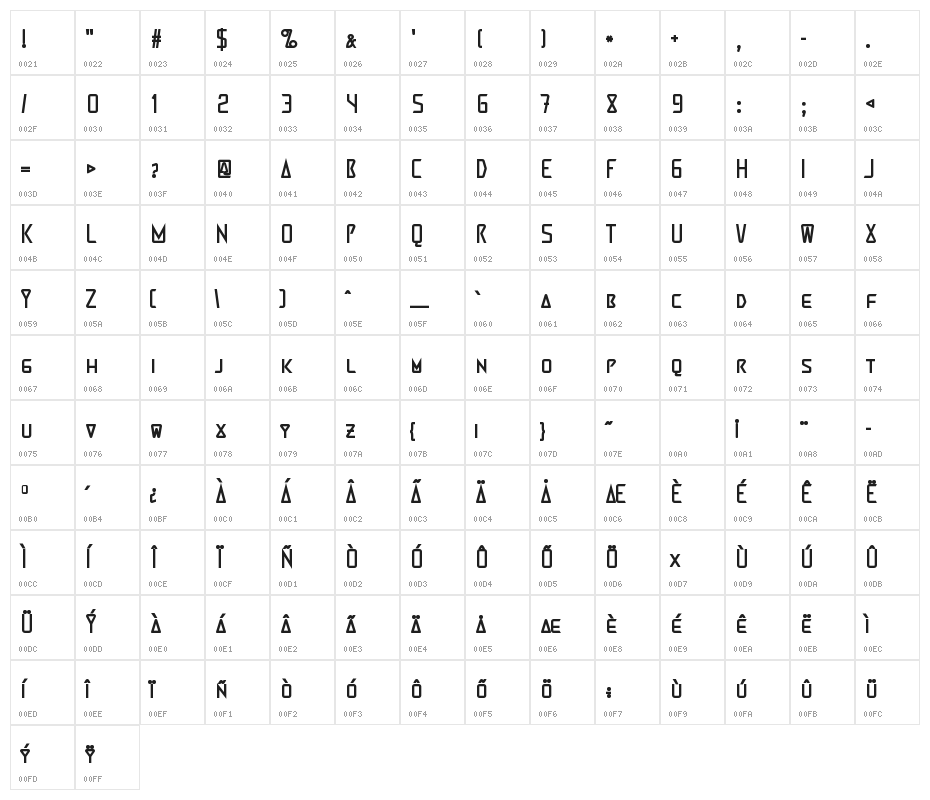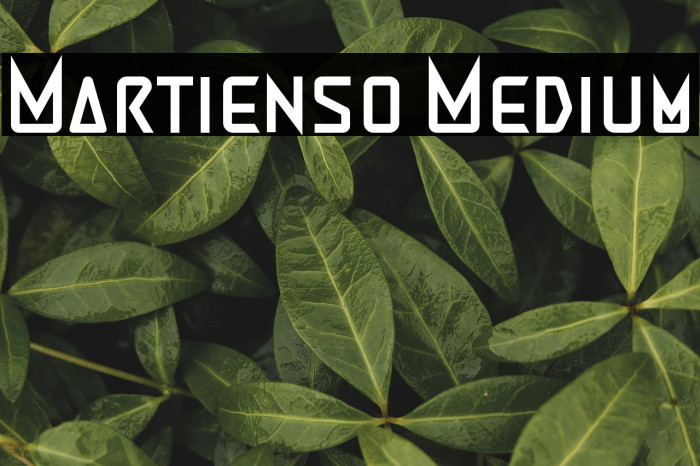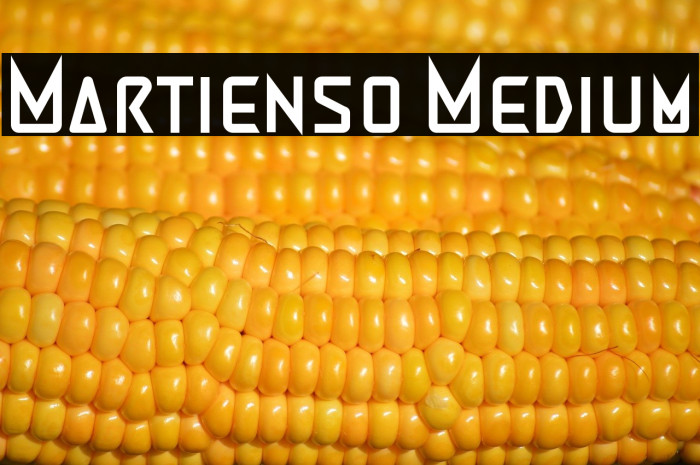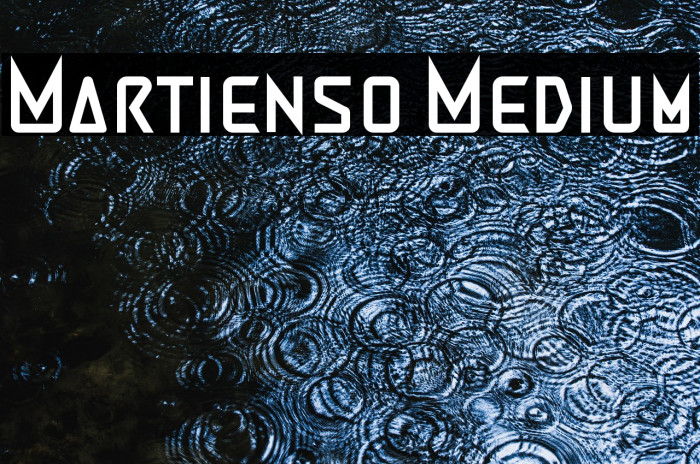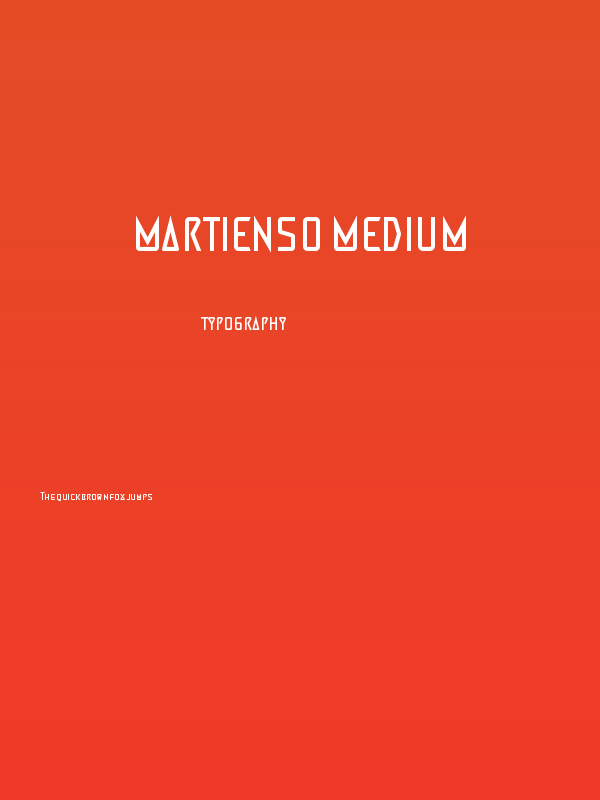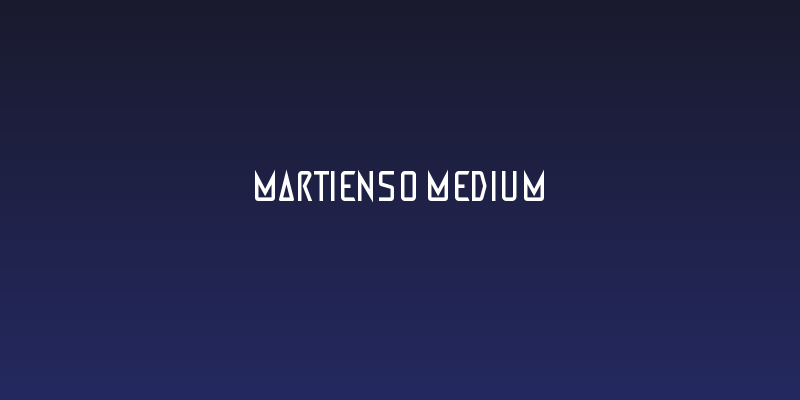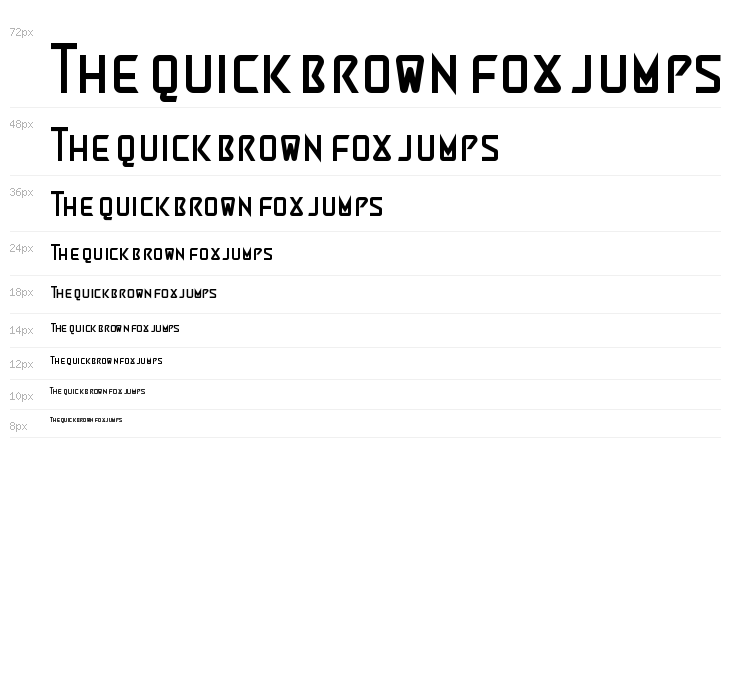
Martienso Medium Font
Martienso Medium Description
This font features a geometric and futuristic design, characterized by sharp angles and clean lines. The uppercase letters exhibit a unique style with angular cuts and a sense of symmetry, while the lowercase letters maintain a consistent geometric form. The numerals are distinct and align well with the overall aesthetic, providing a cohesive look. Special characters are designed to match the angular theme, ensuring uniformity across all glyphs. The font's modern and edgy appearance makes it suitable for projects that require a bold statement.
| Proposed Projects | Ideal for sci-fi themed designs, technology branding, video game interfaces, and modern posters. |